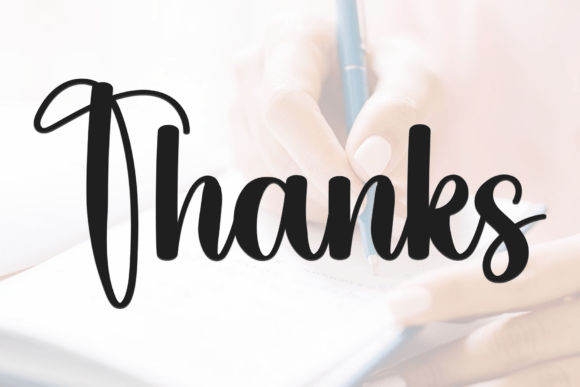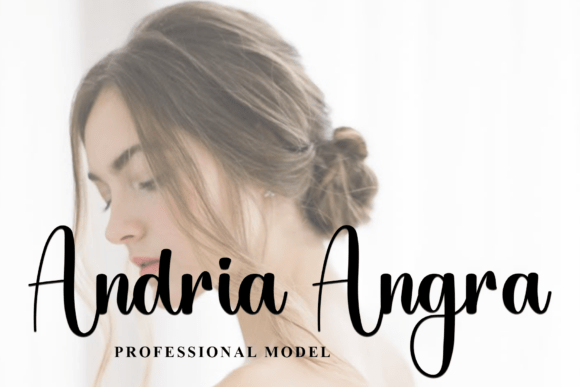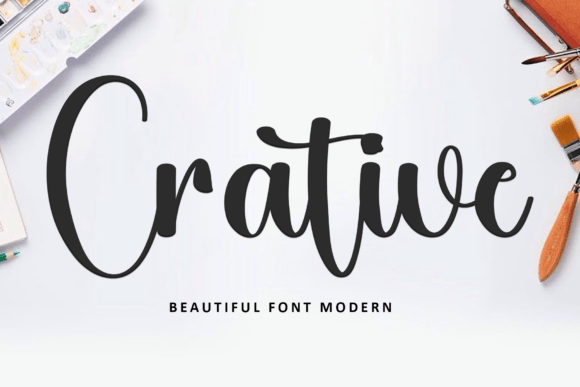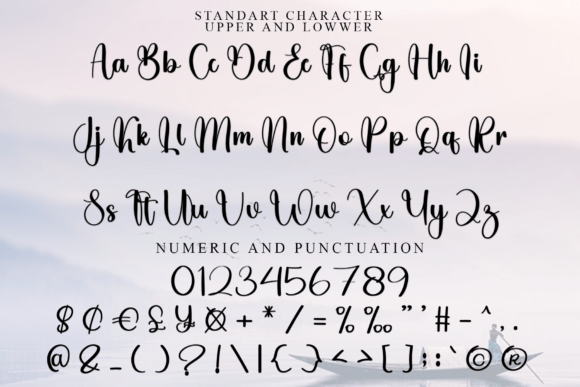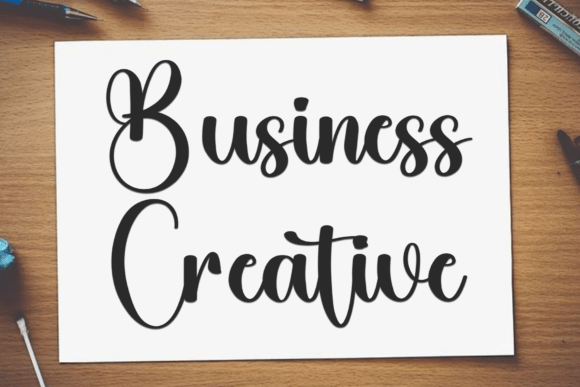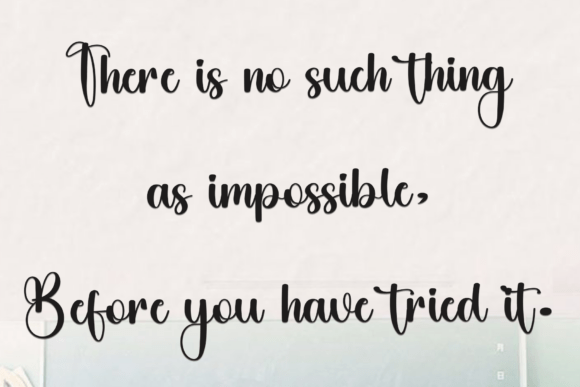
Introduction to Candy Butterfly Font
Have you ever been working on a creative project, pouring your heart and soul into every detail, and then stumbled upon the perfect design resource that elevates your entire concept? For me, that moment came when I discovered the enchanting Candy Butterfly Font. Its whimsical flair and festive feel instantly captured the magic of the holiday season, transporting me to a world of wonder and joy.
As designers, we’re always on the lookout for unique and high-quality fonts that can add an extra layer of depth and personality to our work. The Candy Butterfly Font is a perfect addition to any design arsenal, offering a wide range of glyphs and ligatures that can be easily accessed thanks to its PUA encoding. With its transparent background and free download option, this font is a valuable resource for designers who want to create eye-catching and memorable designs.
Whether you’re working on a holiday-themed project or simply want to add a touch of whimsy to your design, the Candy Butterfly Font is sure to delight. Its high-quality design and versatility make it an essential tool for any creative project, and its free download option means you can start experimenting with it right away.
Key Features of Candy Butterfly Font
- Unique and whimsical design ideal for creative projects and designs requiring a playful touch
- High-quality, professional-grade font suitable as a valuable design resource for various applications
- Perfect for designers seeking a distinctive and eye-catching font to elevate their creative projects
Honest Review: Candy Butterfly Font
The Candy Butterfly Font has a whimsical, playful feel to it, with intricate details that make it perfect for illustrations, graphics, and other design elements that require a high level of customization.
- High-quality vector design that scales well for various sizes
- Transparent background option for easy compositing
- Beautiful, detailed illustrations that add a touch of magic to any design
- Limited character set, which may require additional fonts for full Unicode support
- Not suitable for body text due to its ornate design
Overall, I’m impressed with the Candy Butterfly Font’s unique style and versatility. It’s a great addition to any designer’s toolkit, and I’d definitely recommend it for creative projects that require a touch of whimsy.
Tips for Getting the Most Out of the Candy Butterfly Font
To get the most out of the Candy Butterfly Font, use it in conjunction with other design resources, such as graphics and images. Experiment with different font sizes and colors to create a unique and eye-catching design. You can also use the font to create a cohesive brand identity.
The Candy Butterfly Font is a versatile design resource that can be used in a variety of creative projects, including social media graphics, blog posts, and business presentations. Its transparent background and high-quality design make it an ideal choice for designers looking for a free download to enhance their designs.